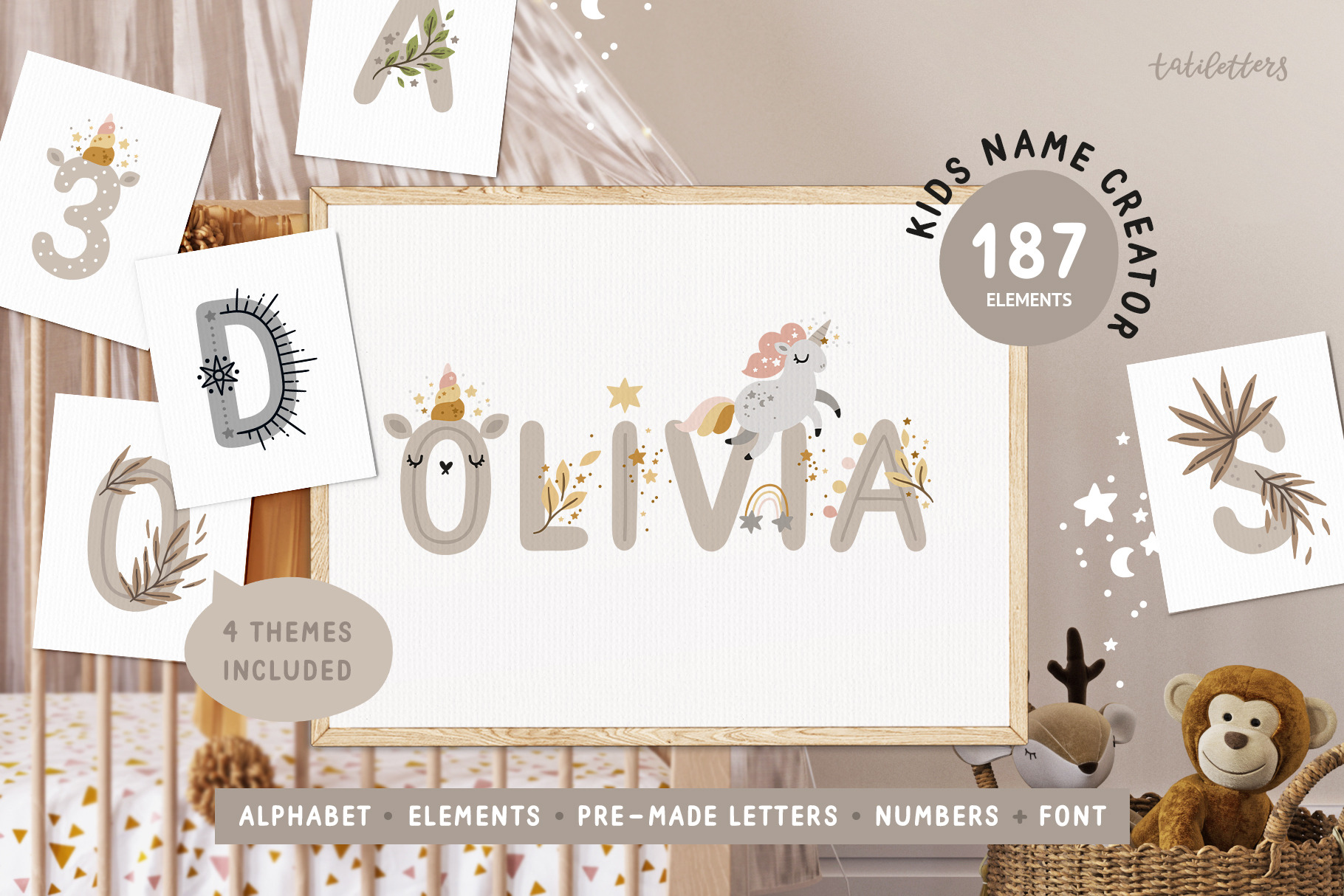
Kids Name creator Nursery art & Font
Kids Name creator – a huge collection for creating nursery art! Create personalized prints with letters, cute elements, numbers, and font!
4 themes in this collection: Unicorn, Celestial, Floral, Safari. This way you can create as many designs as possible with one set! Mix and match letters & elements to create your own nursery art!
This collection is exactly what you need for creating baby name posters, personalized baby clothes, nursery wall art, birthday invites, baby shower cards and more.